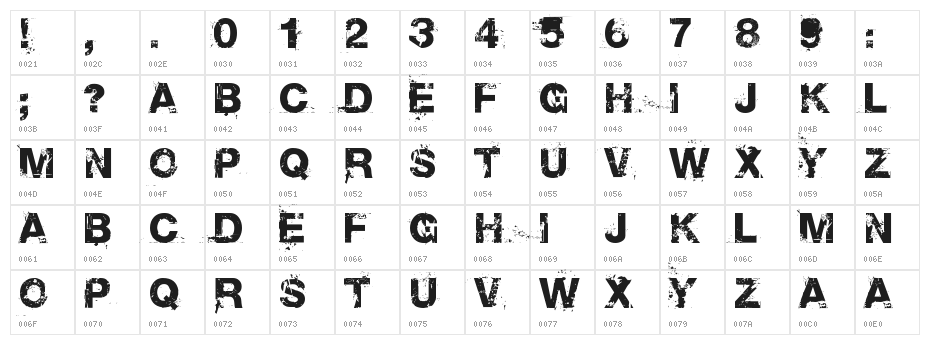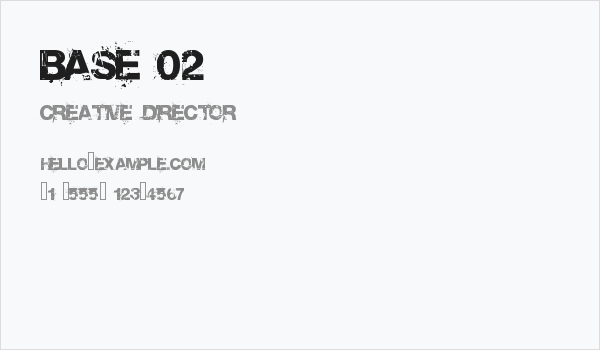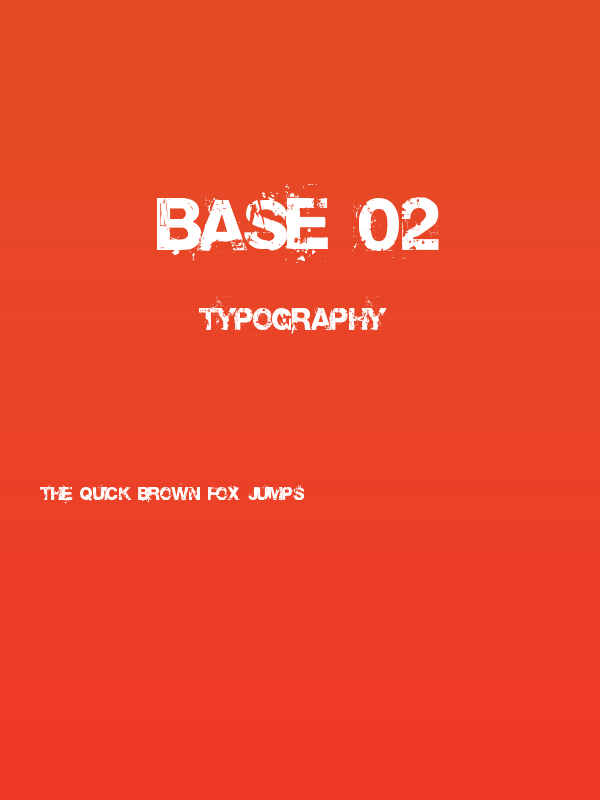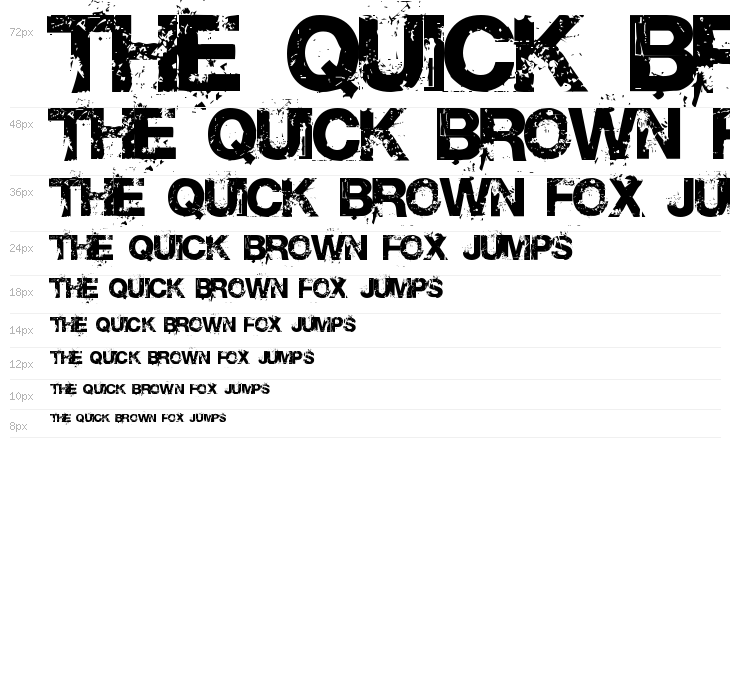
Base 02 Font
Base 02 Description
This font features a bold, distressed style with a grunge texture that gives it a rugged, worn appearance. The characters are uppercase and numerals, each with a unique pattern of distress marks that add to the overall aesthetic. The font maintains a consistent width and height across all characters, providing a uniform look despite the irregular texture. The boldness of the strokes is complemented by the high contrast between the black letterforms and the white background, making it highly legible even with the distressed effect. This font is ideal for projects that require a strong, impactful visual presence.
| Overall Style | Grunge, Decorative |
| Proposed Projects | Ideal for album covers, posters, branding for edgy or alternative products, and any design needing a strong, gritty aesthetic. |